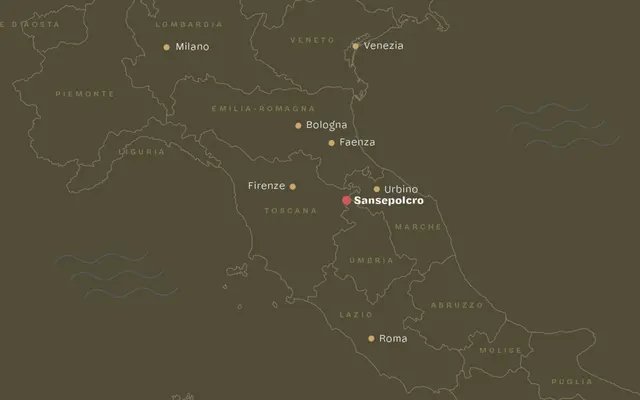
Halyard
Darden Studio · Joshua Darden, Eben Sorkin, Lucas Sharp · 2017
Halyard specimen from Darden Studio
A 48-style grotesque by Joshua Darden, Eben Sorkin and Lucas Sharp, offered across three optical sizes tuned for micro, text and display settings.
Designed at Darden Studio and released in 2017, the family draws selectively from 19th and early 20th century grotesque sources including Schelter+Giesecke, Miller and Richard, and Morris Fuller Benton to produce something that feels familiar without being derivative. Three subfamilies — Micro, Text and Display — each run from Extralight to Black with matching italics, giving 48 styles in total. The optical calibration makes it genuinely useful from small-print interfaces through to large-scale typesetting.
Darden Studio classifies Halyard as a Grotesque Sans, drawing on 19th and early 20th century designs from Schelter+Giesecke, Miller and Richard, and Morris Fuller Benton as source material.